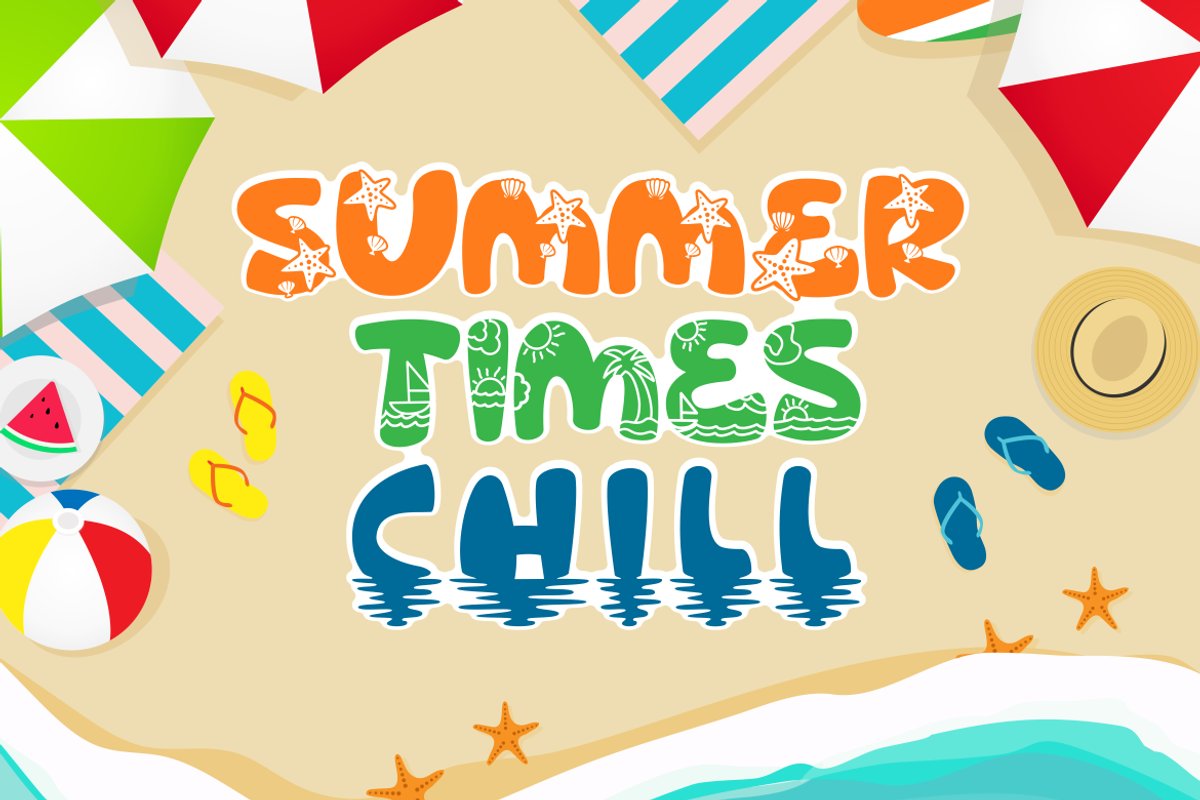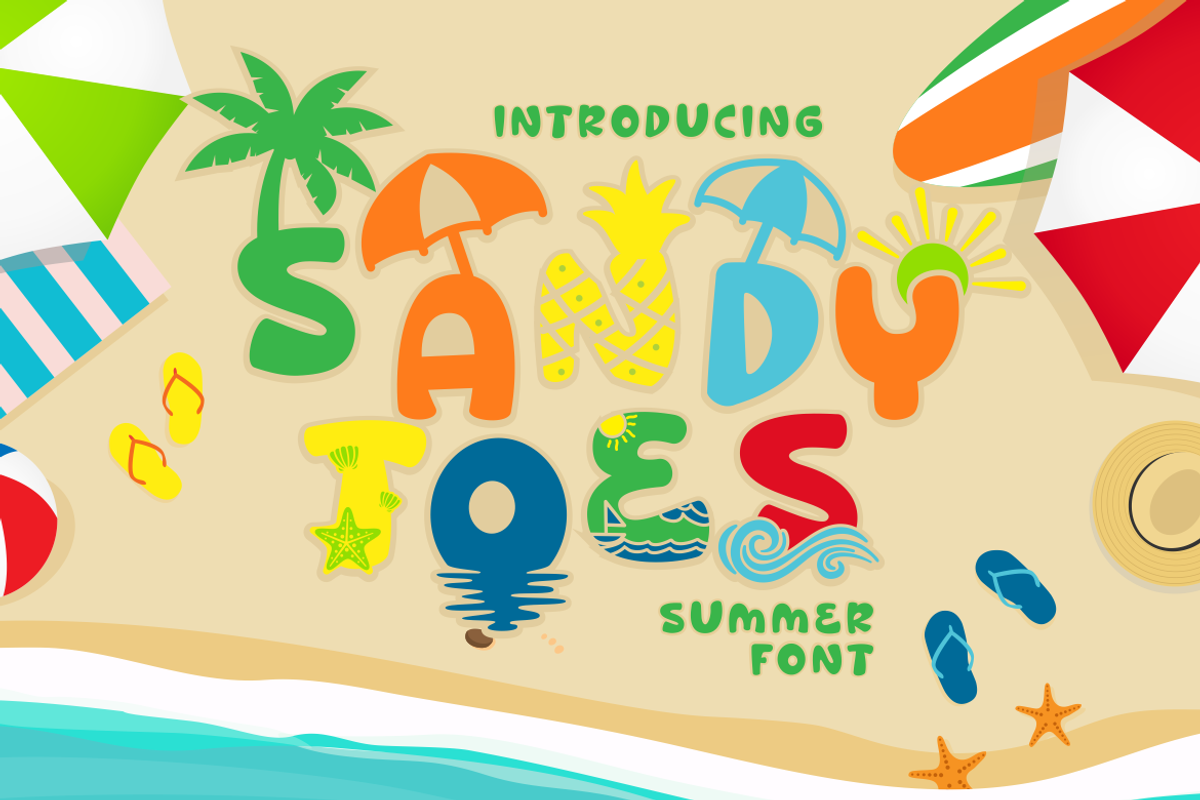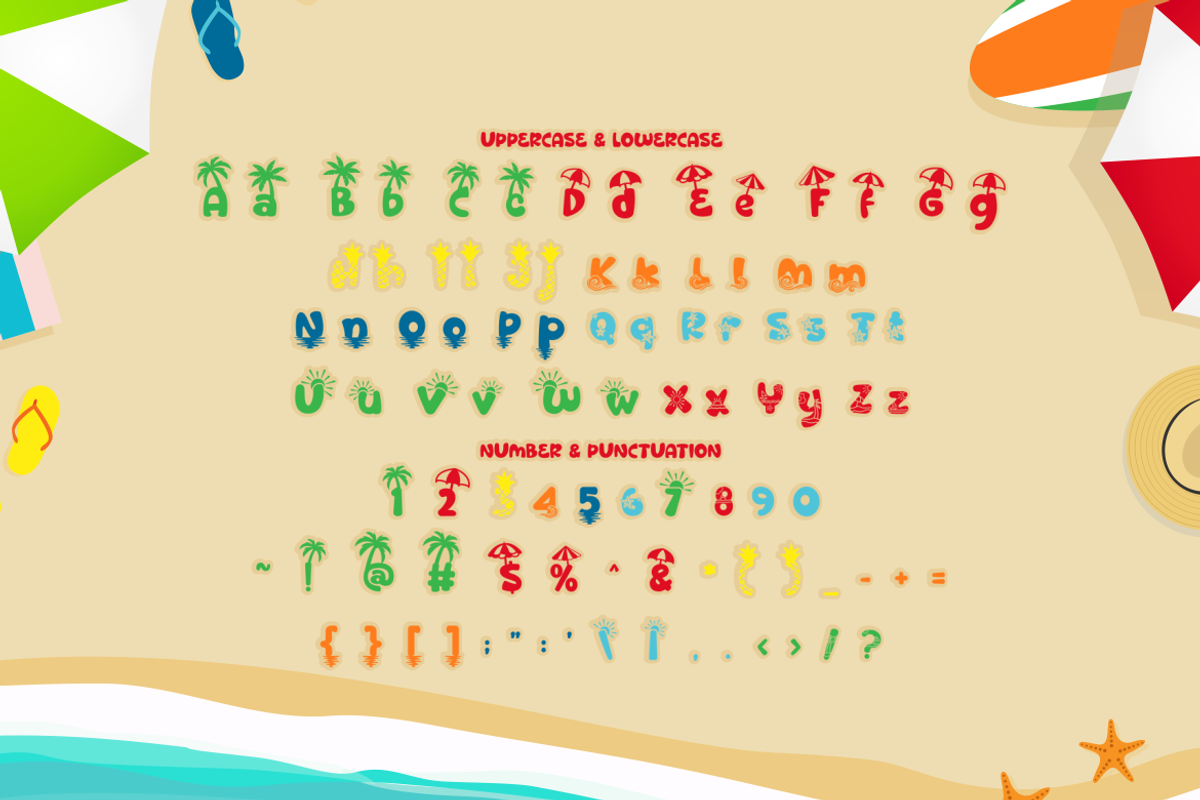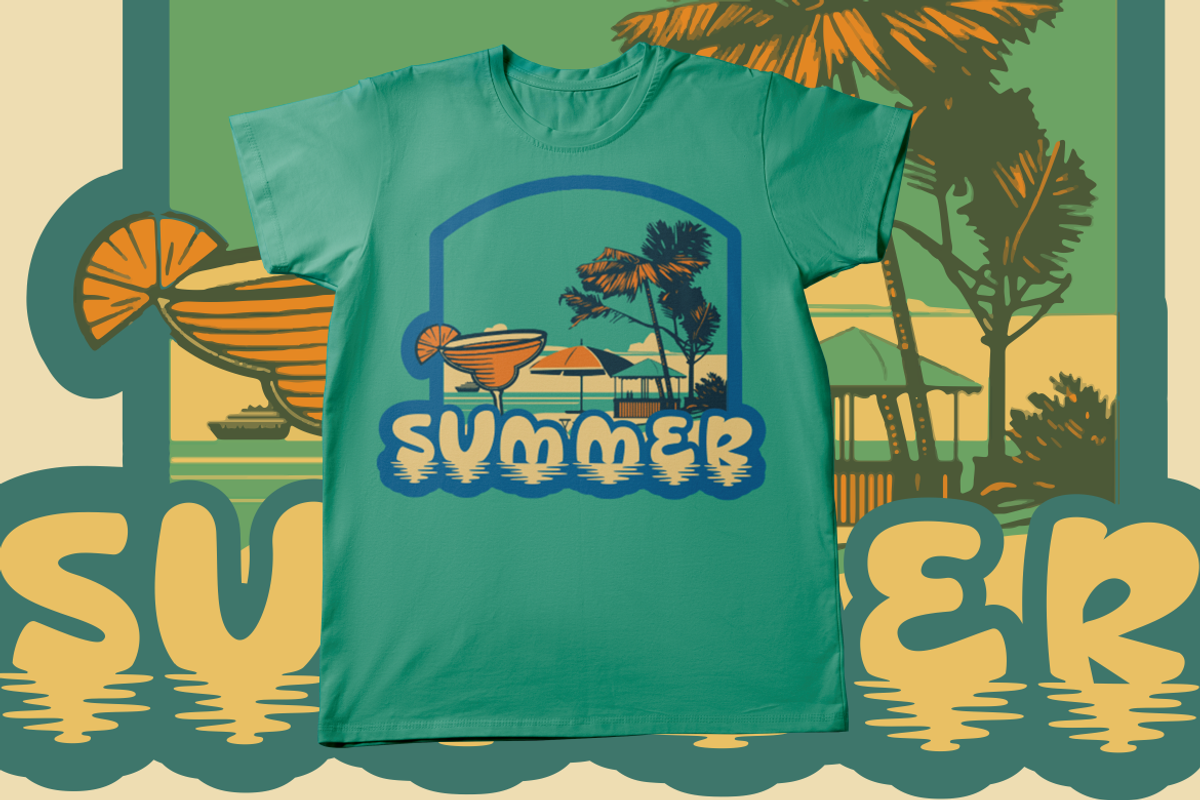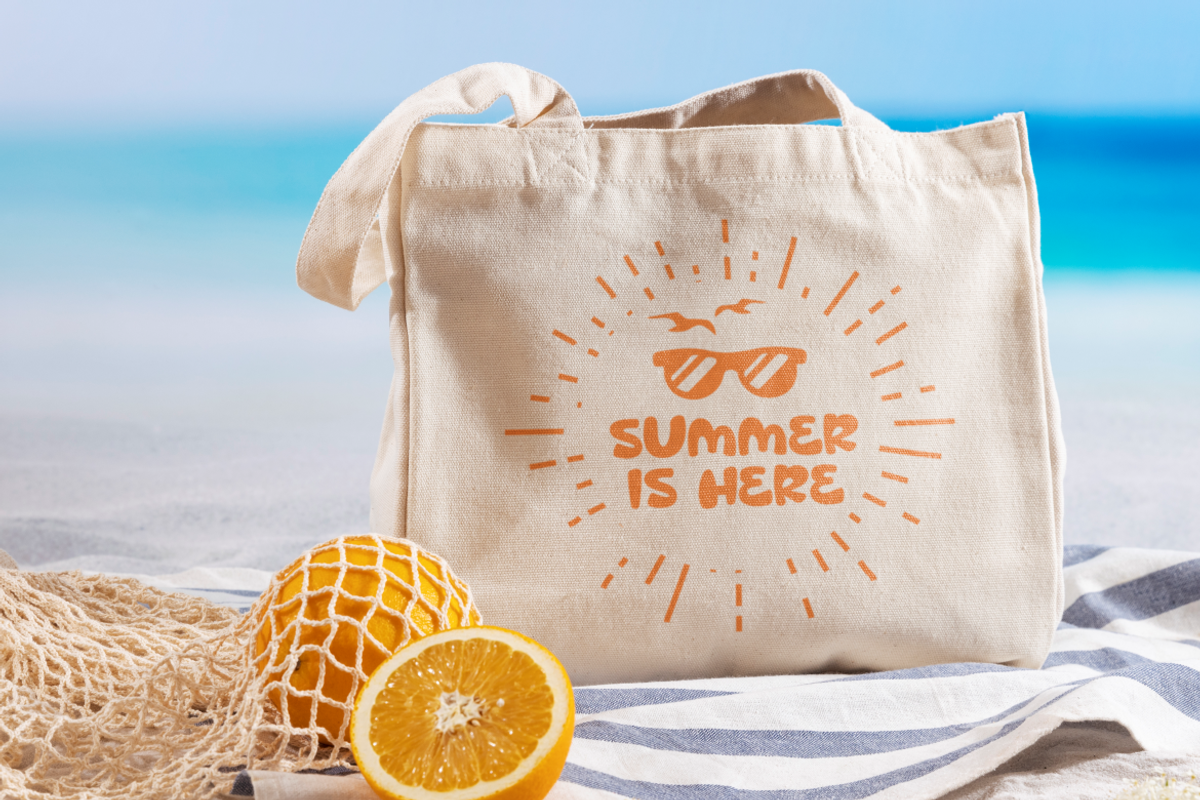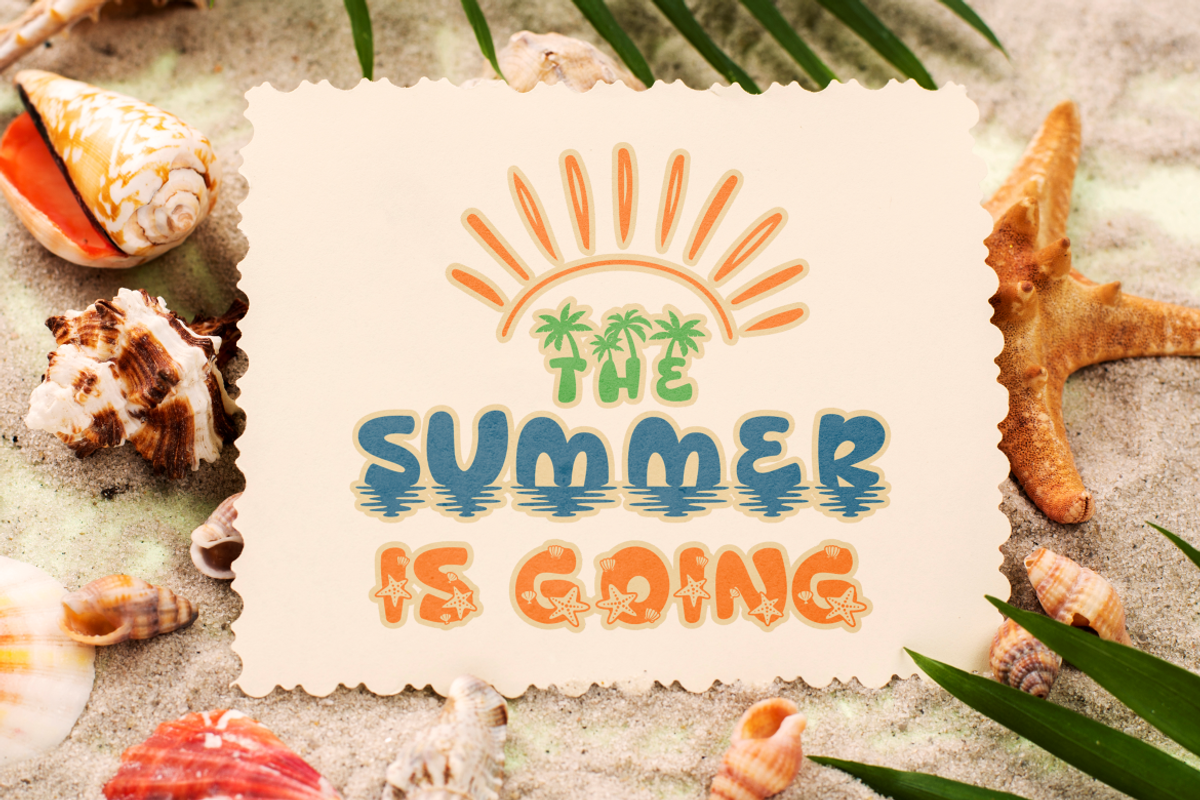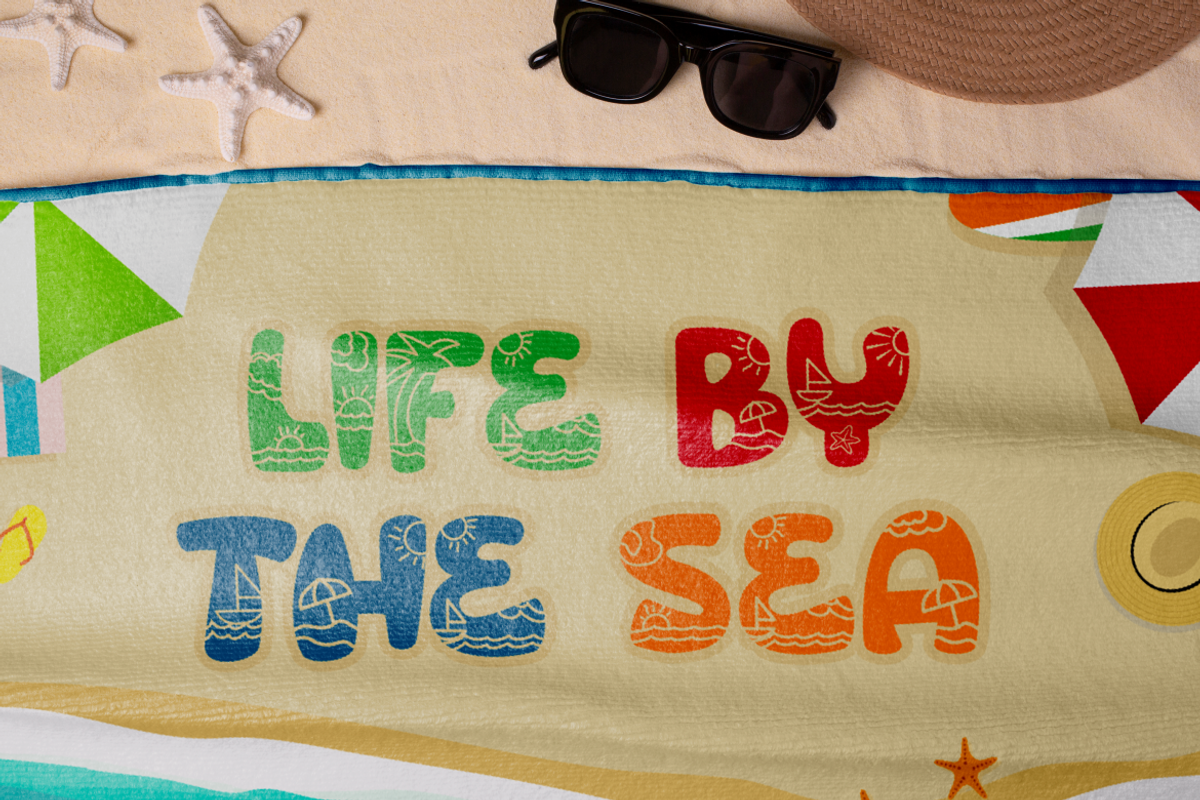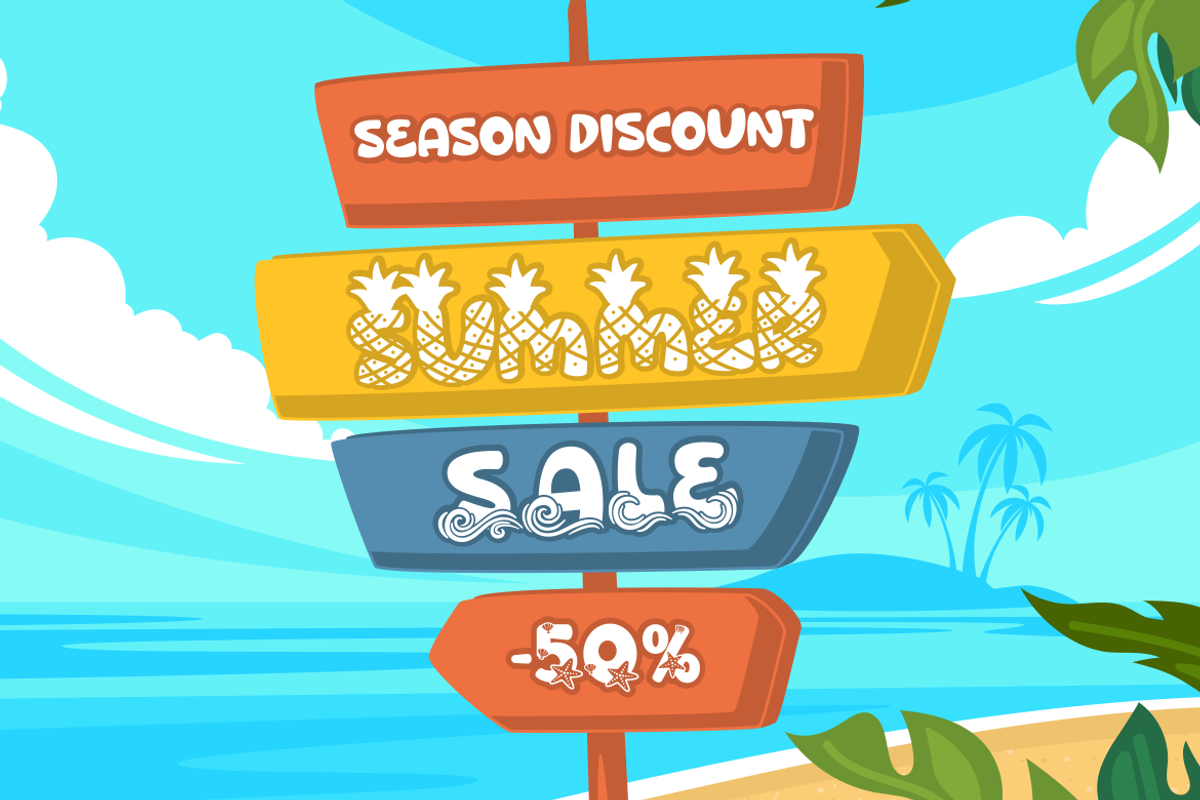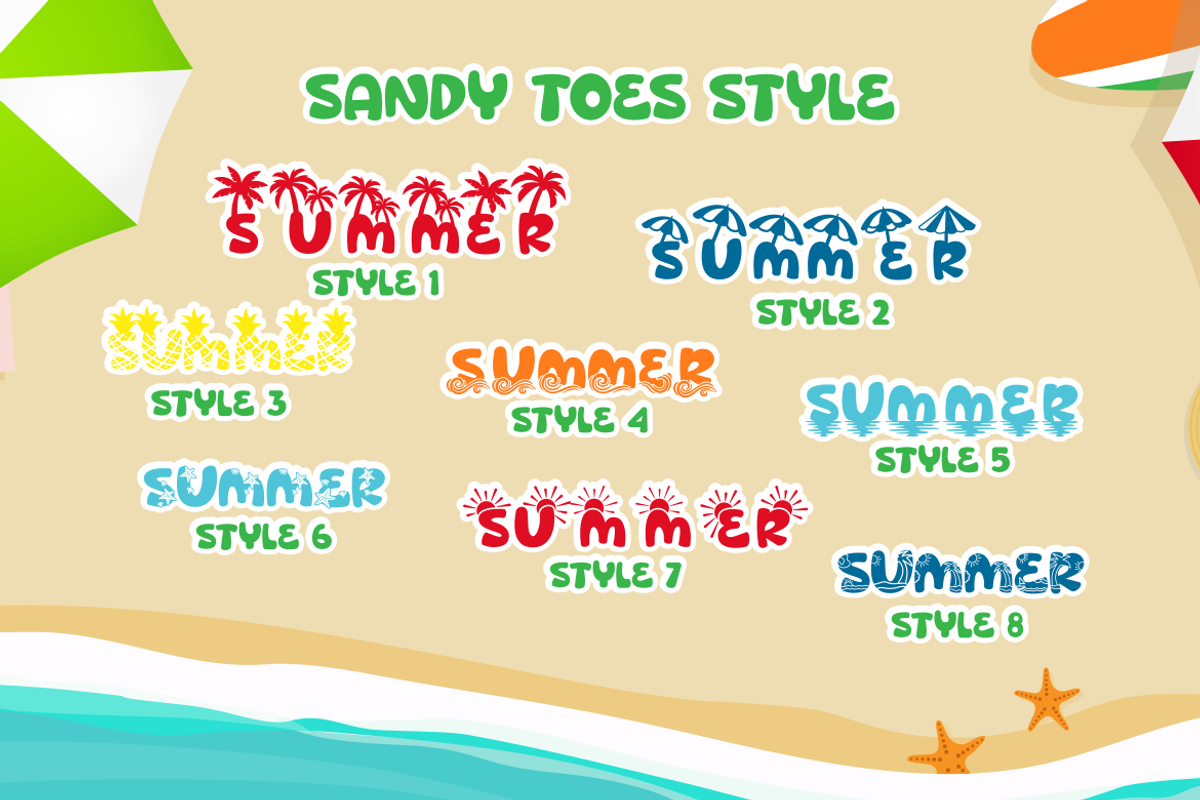
Sandy Toes - Quirky Summer Font
Sandy Toes - Quirky Summer Theme Font is a delightful typeface that transports you to the sunny shores of summer. This font features playful, rounded, and bold letterforms that capture the essence of fun and the warmth of the season. It's versatile and can be used on its own or combined with any of its eight vibrant variations.
With eight distinctive variations inspired by summer, including palms, suns, beaches, pineapples, waves, starfish, and more, Sandy Toes is the perfect choice for children's themes, crafting projects, and designs that radiate fun, playfulness, and a burst of colorful energy.
This font suits a wide range of projects, including logos, children's themes, crafting, invitations, packaging, posters, titles, businesses, greeting cards, stickers, children's books, magazines, and designs that celebrate the carefree days of summer beach vacations.
Sandy Toes will infuse your designs with the carefree spirit of summer, making it perfect for all things sunny and beachy.